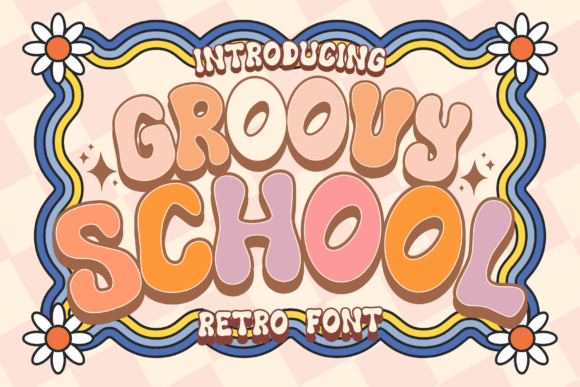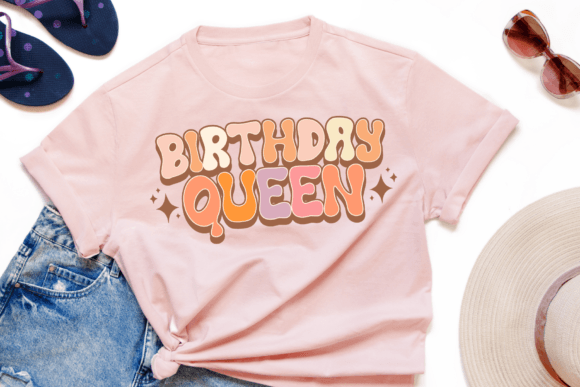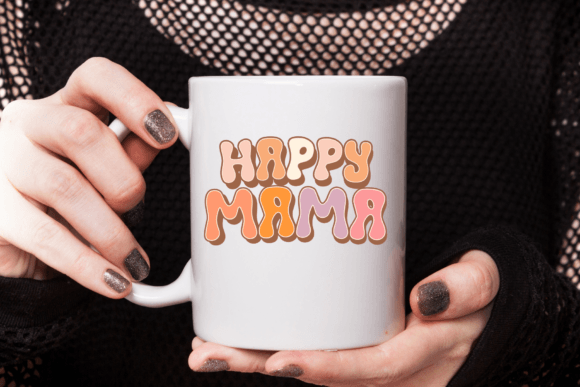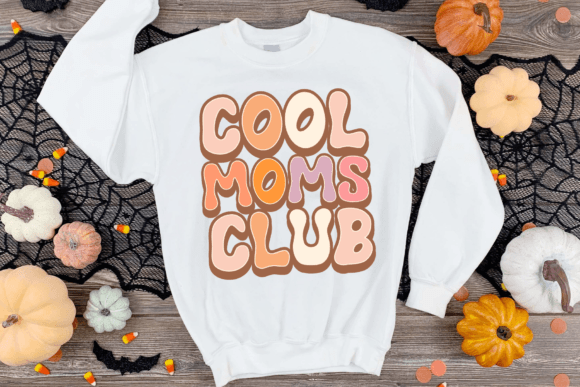
Groovy School Font
About the Groovy School Font
Step up your design game with Groovy School Font, a font that exudes confidence and style. Groovy School is a stylish retro groovy font. Ideal for all your hippie-inspired designs, It embodies playfulness and authenticity and is the perfect choice for all your favorite projects, or even for blog posts, logos, branding, ads, invitations, greeting cards, planners, photo albums, decorations, and much more. Add it to any of your designs, and enjoy the results!
Groovy School’s playful, retro style works best in headlines, short text blocks, logos, and branding for projects targeting a younger demographic or those with a vintage aesthetic. It’s also effective on posters, invitations, and packaging where its bold character can make a statement. However, its less-than-optimal x-height makes it unsuitable for extended body text or UI elements requiring high readability.
For effective pairings, consider pairing Groovy School with a clean sans-serif like Open Sans for body copy, balancing its retro energy with modern clarity. Alternatively, a classic serif like Garamond could provide a sophisticated contrast, highlighting Groovy School’s playful nature. A simple geometric sans-serif could also create a visually interesting juxtaposition.
The font’s overall personality is best described as bold, playful, and nostalgic, making it a strong choice for brands conveying a fun, retro, or slightly rebellious vibe.
Groovy School Font Usage Examples
Groovy School Font Example